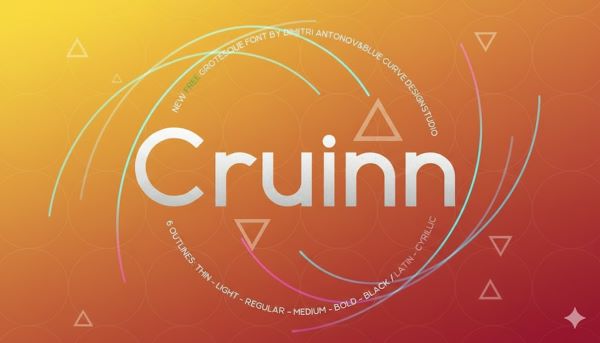
Cruinn Font
Cruinn Font is a modern display typeface featuring rounded geometric shapes and a clean contemporary style. It delivers a friendly yet professional visual tone, making it suitable for logos, branding, packaging, posters, and headline typography. Its balanced structure and approachable personality help designs stand out while fitting seamlessly into modern and versatile free fonts collections.
➤ Font Name: Cruinn
➤ Designer: Dimitri Antonov
➤ Style: Sans Serif